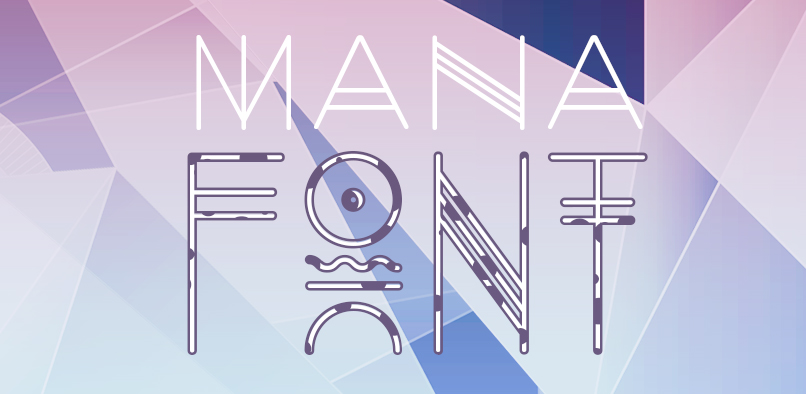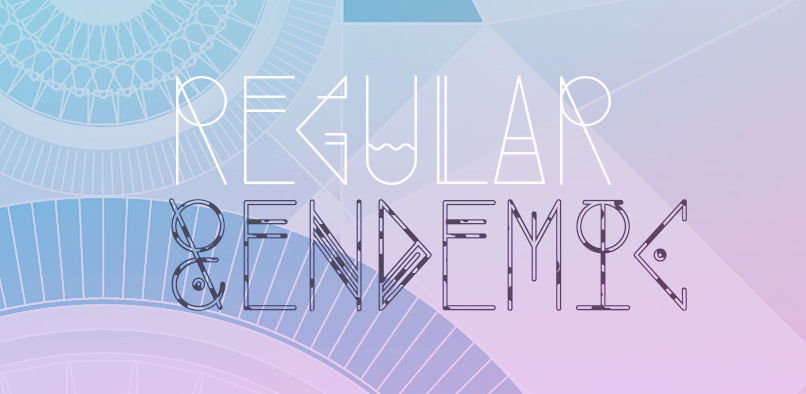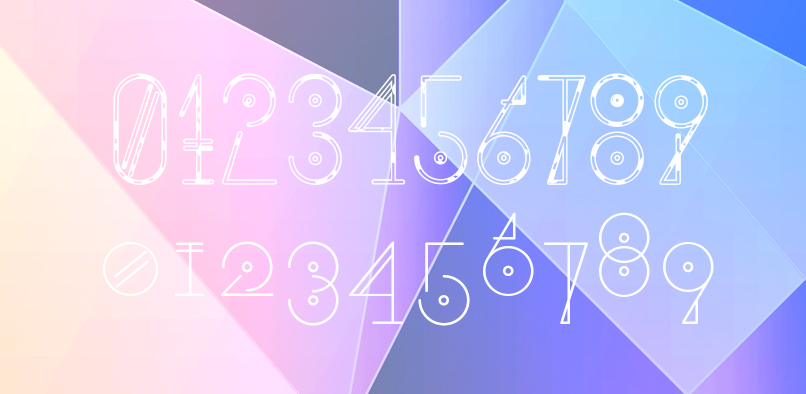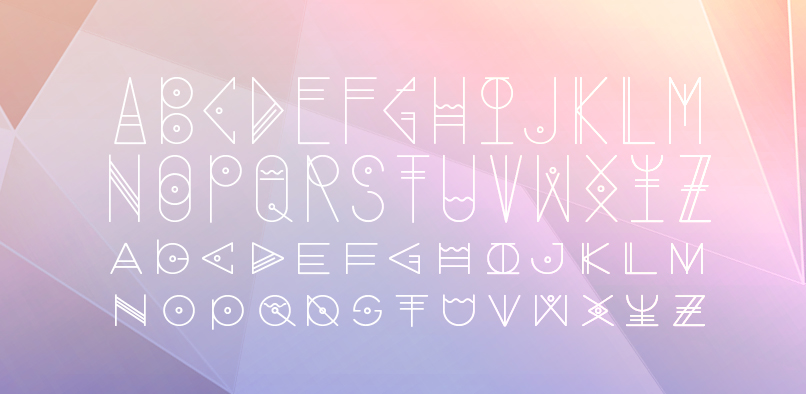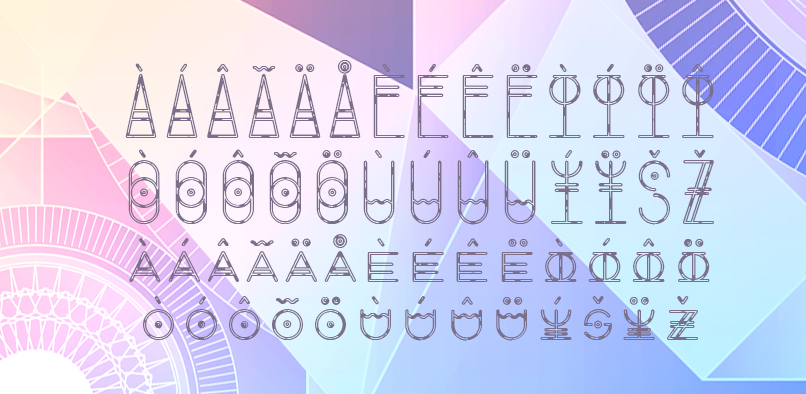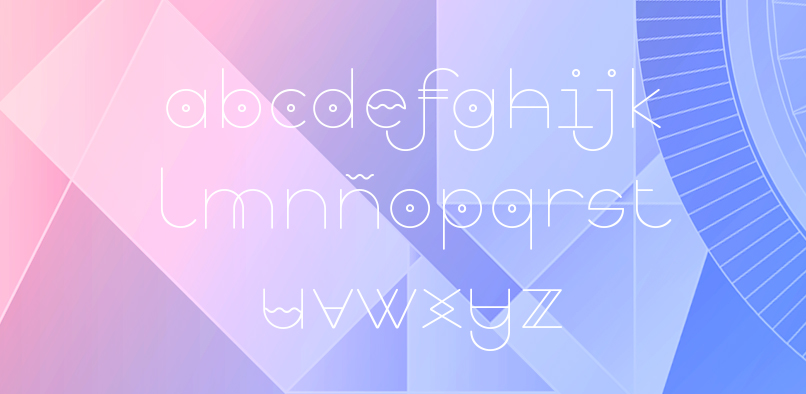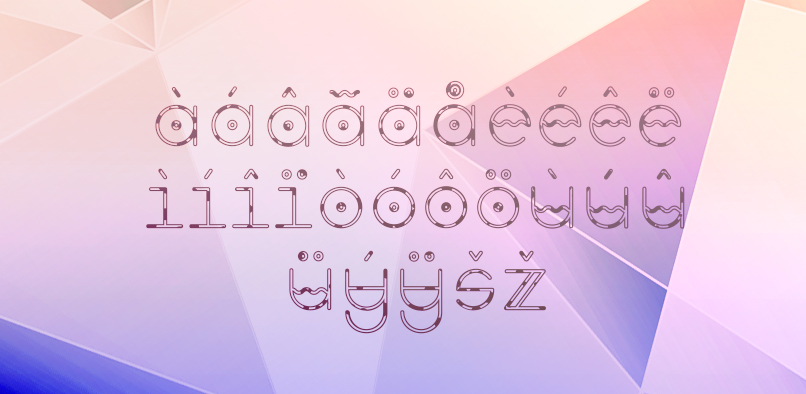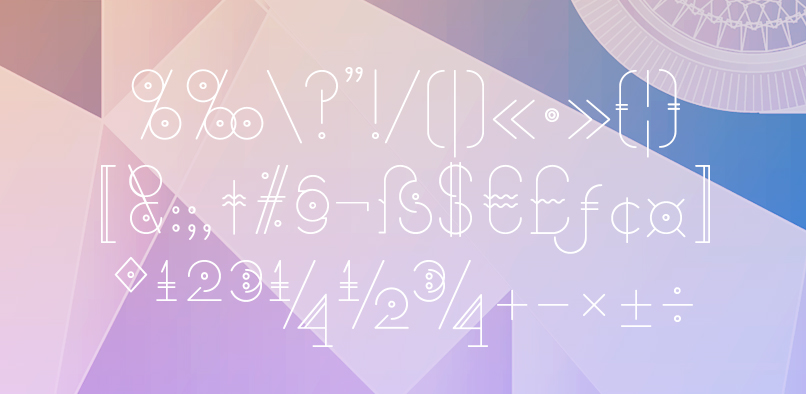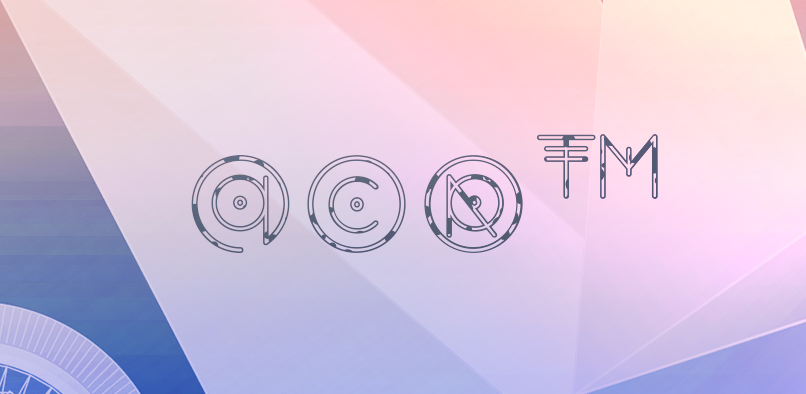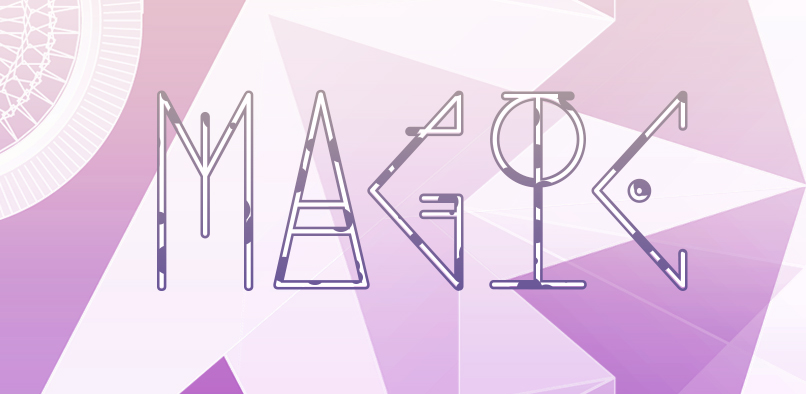
Maná UT Experimental Typeface » Design You Trust – Design Blog and Community
Maná UT is a brilliant new experimental display font designed by Rafa Goicoechea, based on geometric forms and ancient pictogram symbols.